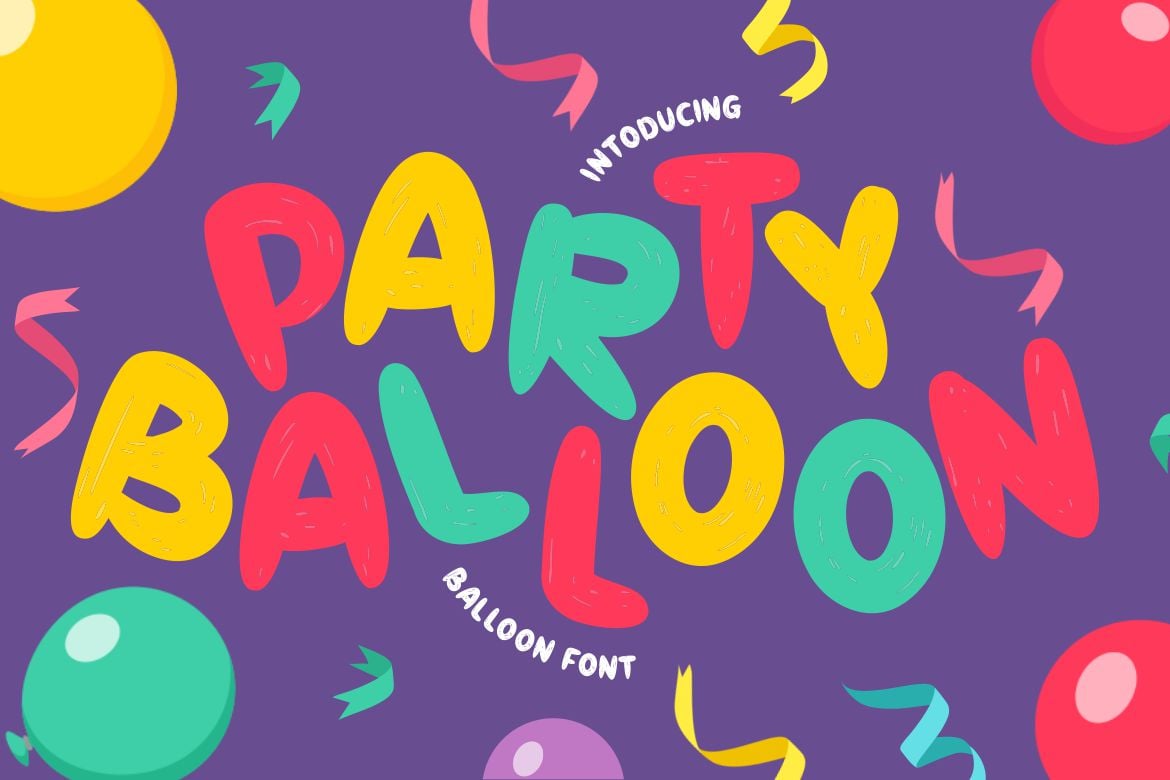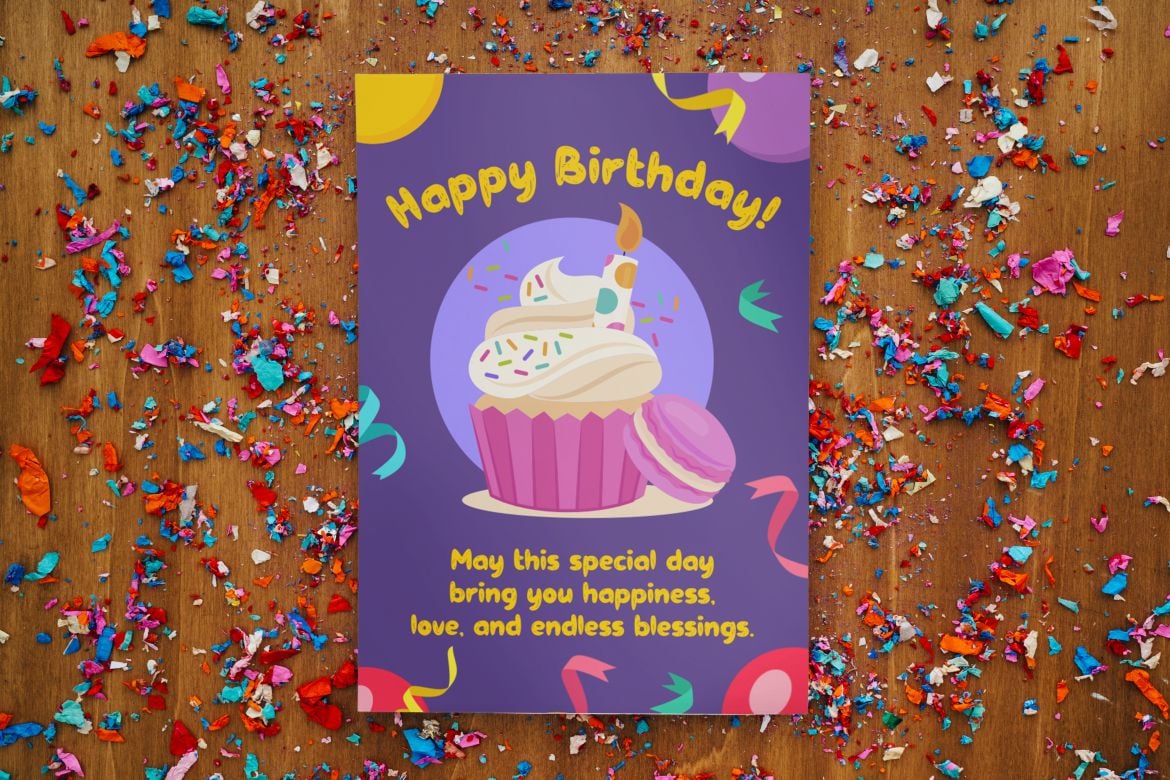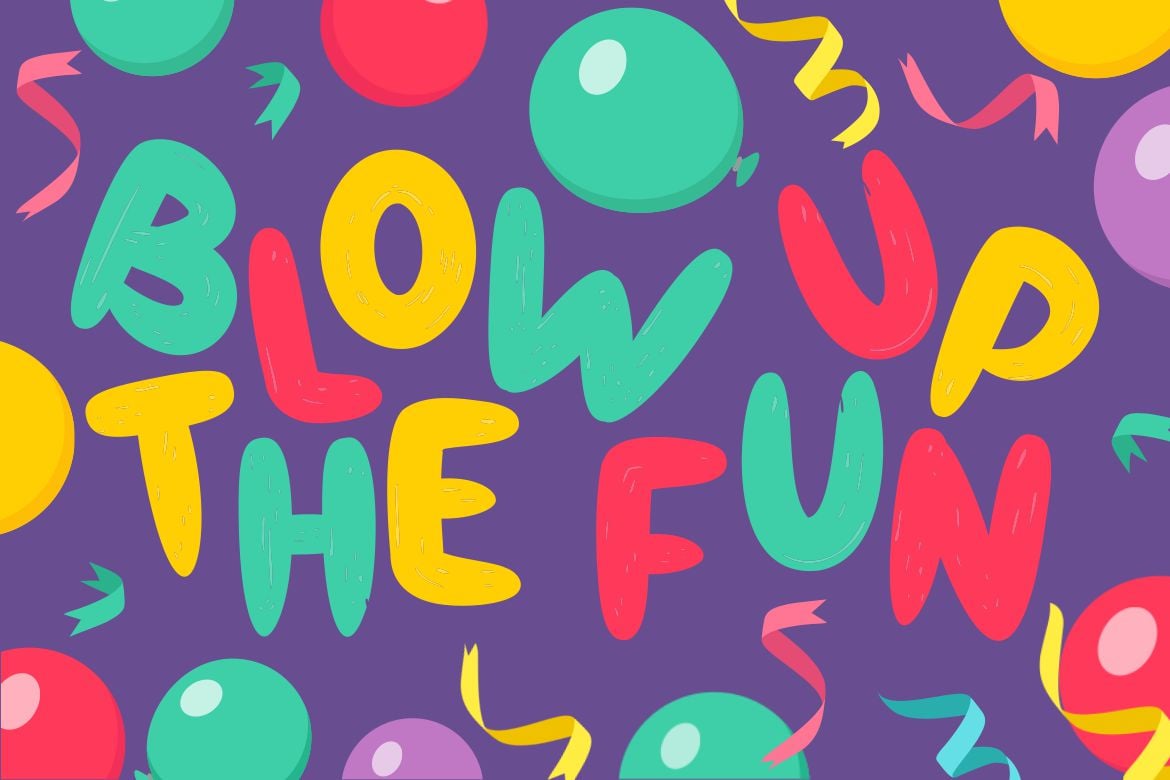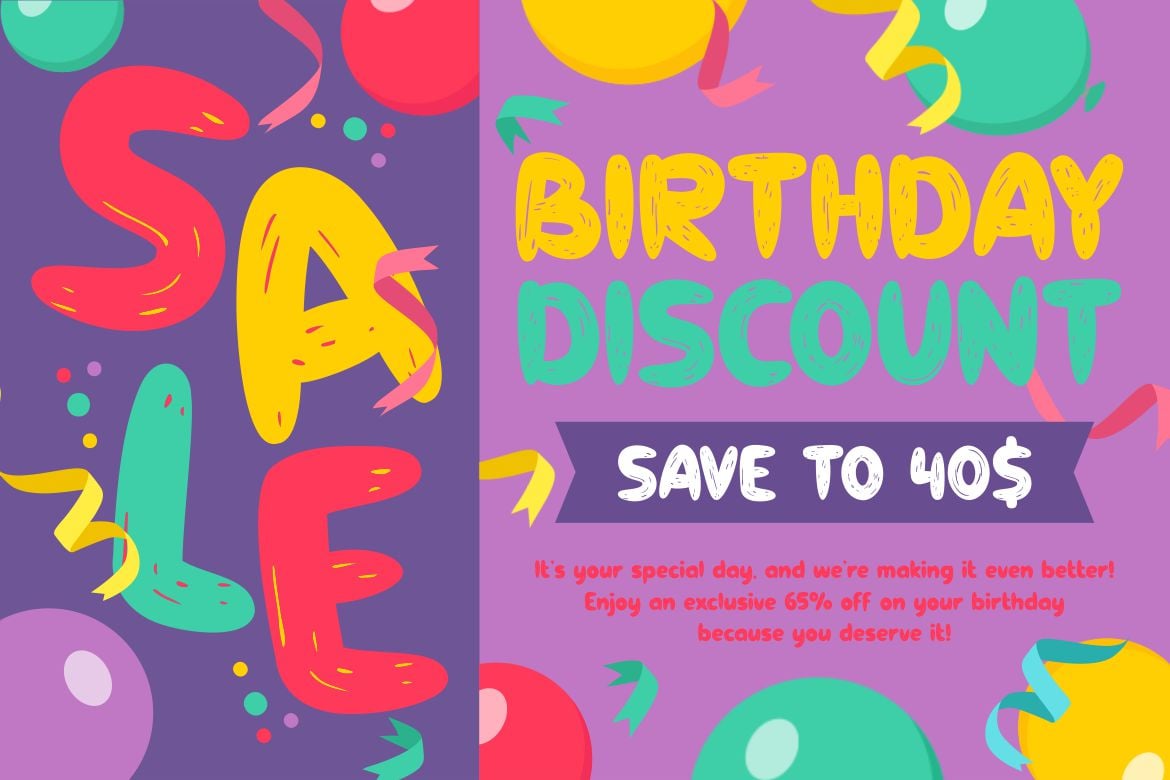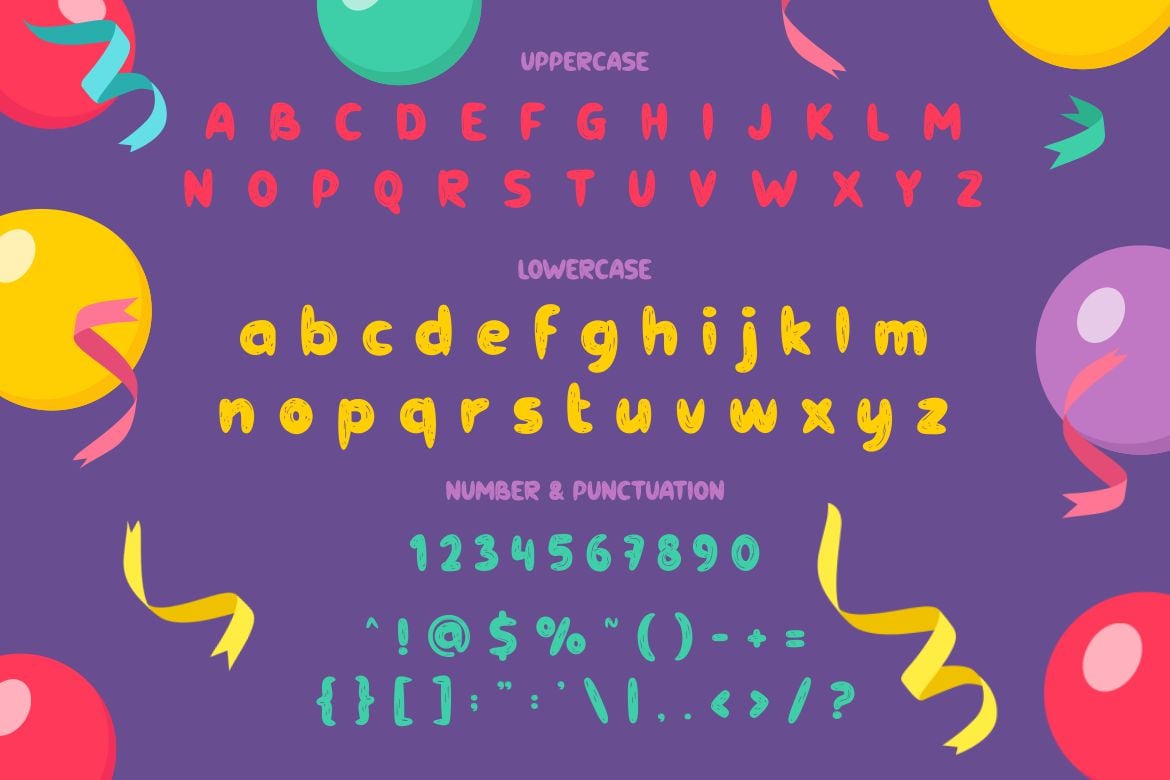
Party Balloon – Balloon Font
Introducing Party Balloon – Balloon Font, a lively and cheerful typeface designed to bring excitement to any celebration-themed project! This playful display font features soft, rounded letters that resemble real inflated balloons, creating a fun and dynamic look. The letters are crafted with a slightly irregular shape, making them appear hand-drawn and energetic. The font comes in a mix of vibrant colors—red, yellow, and green—giving it a festive, party-like atmosphere. The deep purple background enhances the contrast, while scattered balloons, ribbons, and confetti elements add to the joyful and celebratory mood. This font is perfect for capturing the essence of birthdays, parties, and other fun-filled events.
Whether you’re designing invitations, greeting cards, posters, or social media graphics, Party Balloon is the ideal font to make your message pop! Its bubbly, friendly aesthetic makes it great for children’s books, branding, packaging, and event promotions. The slightly textured strokes add a handcrafted feel, making this font perfect for DIY crafts and creative projects. If you’re looking for a font that radiates happiness and excitement, Party Balloon is your go-to choice!